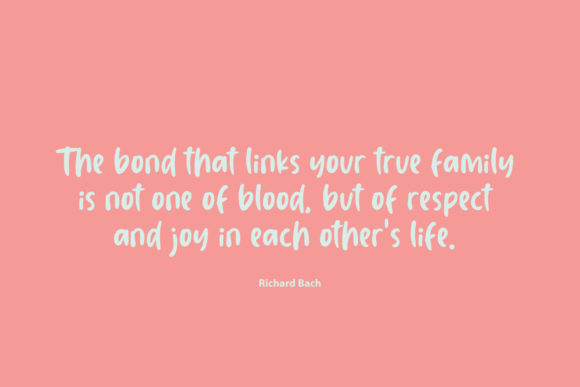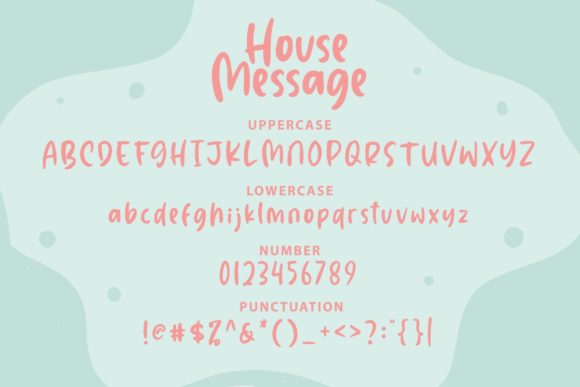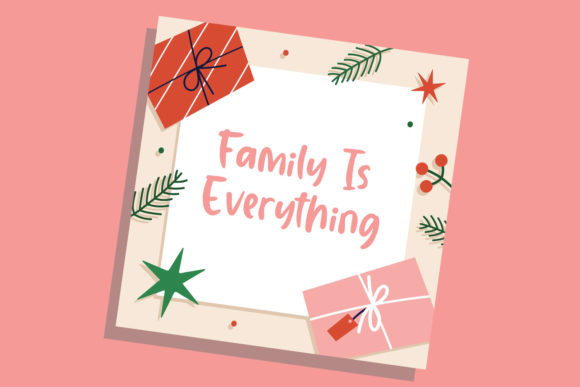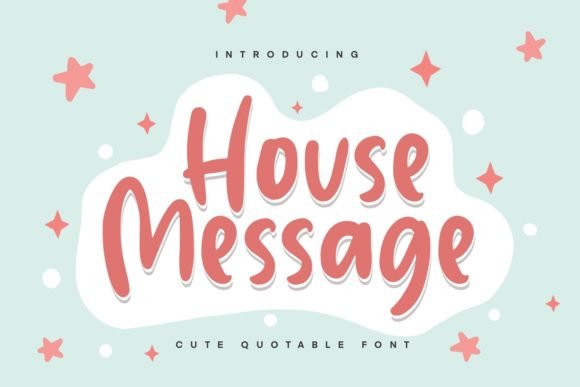
Introduction to House Message Font
House Message is a cute, relaxed and friendly handwritten font.
Its sweet and full of life style makes this font a wonderful choice for brightening up your designs .
Key Features of House Message Font
Why Choose House Message Font?
House Message Font offers exceptional quality and versatility, making it a valuable addition to your design toolkit. Whether you’re creating for personal projects or commercial use, House Message Font delivers professional results.